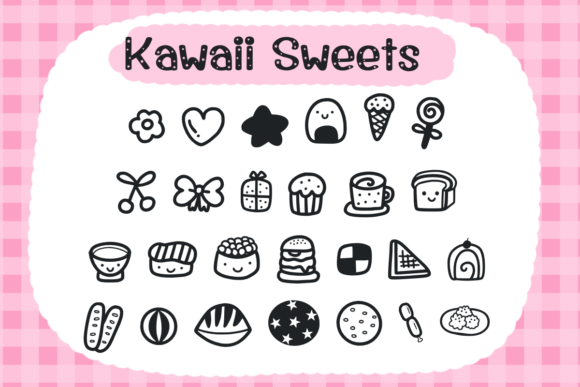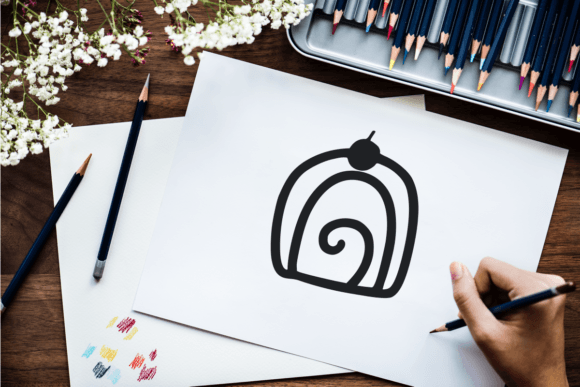
SPECIMEN Kawaii Sweets Font
Kawaii Sweets is a delightful dingbats font that brings the charm of cute and adorable sweets to your designs. With its hand-drawn style, this font offers a collection of sweet treats, ranging from ice cream cones and cupcakes to donuts and lollipops.
Whether you’re working on crafting projects, digital designs, presentations, or greeting cards, Kawaii Sweets is a versatile font that can add a touch of cuteness and whimsy to your creations. The doodle-like illustrations of the sweets make them perfect for a wide range of purposes, including children’s materials, party invitations, stationery, social media graphics, and more.
The beauty of Kawaii Sweets is its ability to bring a sense of joy and playfulness to your designs. The hand-drawn nature of the dingbats adds an authentic and personal touch, making your creations stand out. You can use these sweet icons individually or combine them to create charming patterns and compositions that will capture the attention of your audience.
Imagine using Kawaii Sweets to decorate a birthday card, where the cute illustrations of ice cream cones and cupcakes adorn the borders and bring a smile to the recipient’s face. Or incorporating these charming dingbats into a digital design for a children’s event, instantly adding a touch of fun and whimsy.
With Kawaii Sweets, your creative ideas will truly come to life. The versatility of this dingbats font allows you to explore various design possibilities and create outstanding visuals. You can easily incorporate these delightful sweets into your projects, giving them a unique and appealing look.
Whether you’re a professional designer or someone looking to add a playful element to your personal creations, Kawaii Sweets is a valuable addition to your font library. Its cuteness and versatility make it suitable for a wide range of applications, and it will surely bring a smile to anyone who encounters your designs.
So, let your imagination run wild and make your designs stand out with the adorable and useful Kawaii Sweets dingbats font. Add a touch of sweetness and charm to your crafting, digital designs, presentations, and more, and watch as your creations become outstanding with the playful allure of these delightful sweets.